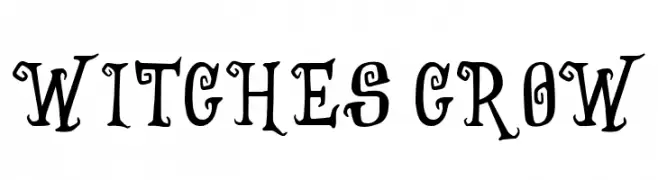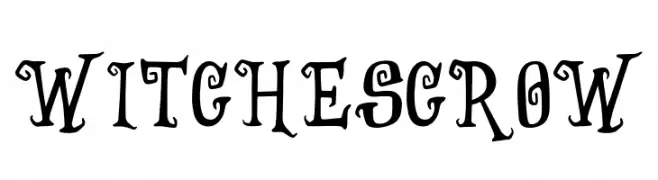
A whimsical, decorative font with playful, gothic-inspired serifs.
A whimsical, decorative font with playful curves and gothic flair.
A whimsical, decorative font with a magical, gothic flair.